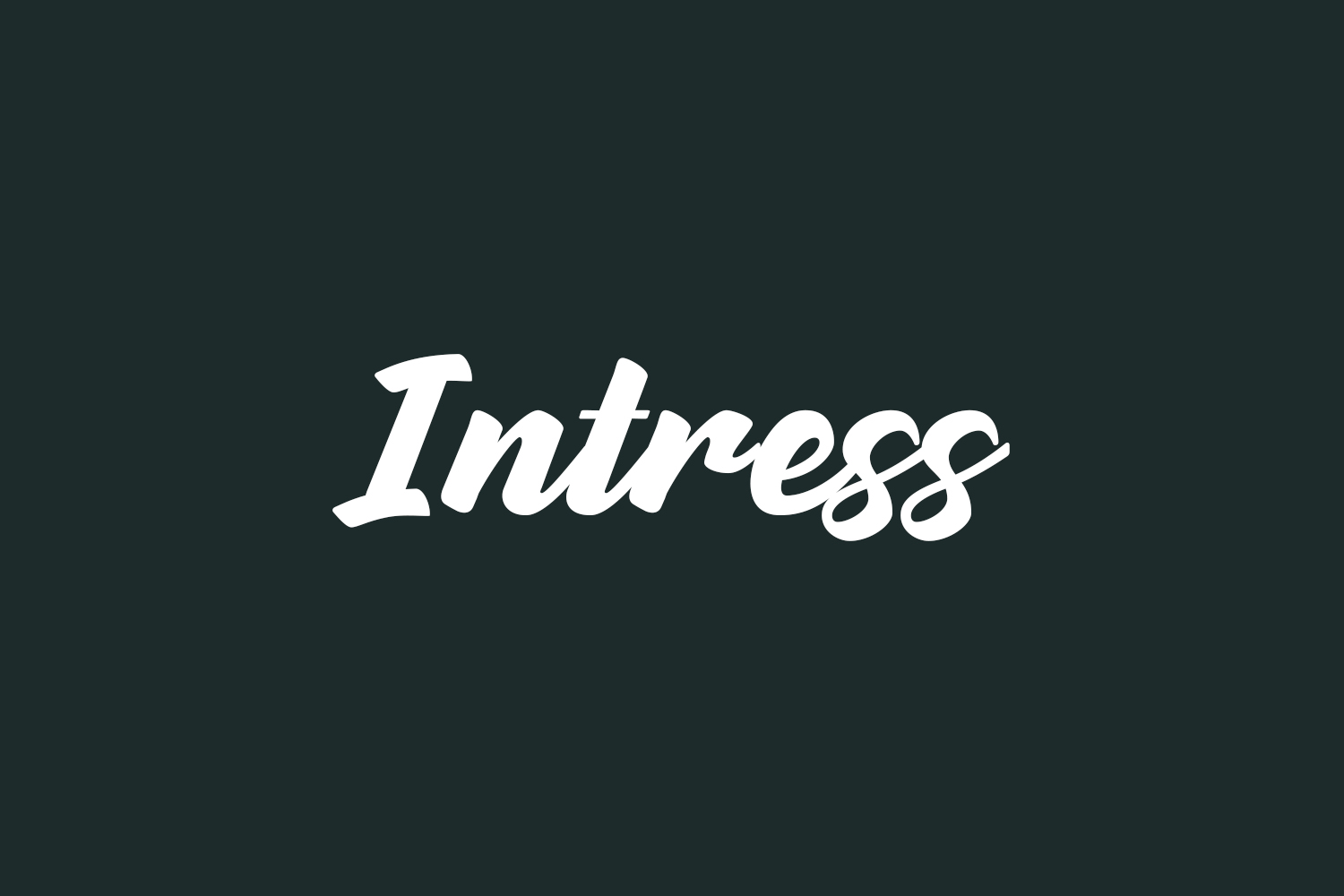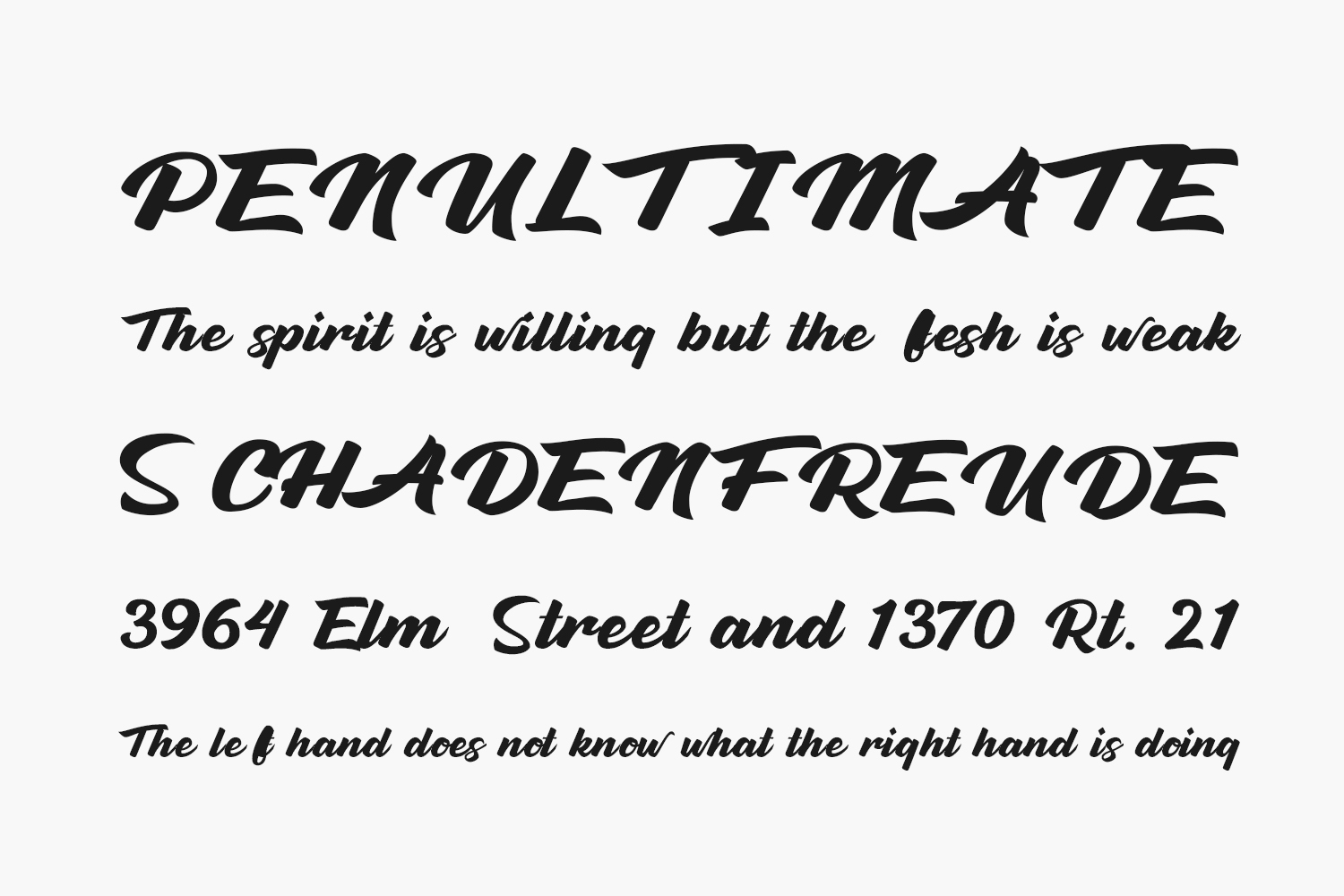
Intress Free Font exclusively manufactured as an ideal addition to any website layout, the iGaming font from the iGamingNJ team has been made to excite. On one hand, it is an innovative design to attract your attention. On the other hand, it unites perfect readability with contrast forms. The lack of detail is compensated by the uneven proportions of width and height. Intress Free Font was designed by Vladyslav Lazurchenko and is free for personal use only. Please purchase the full version for commercial use.